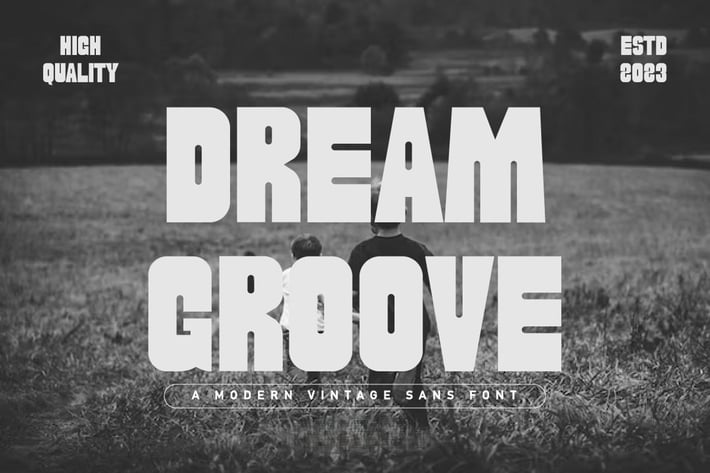
Dream Groove Bold Vintage Display Sans Serif Font
Dream Groove is a bold vintage display sans serif font that brings retro energy and personality to your design. Its thick strokes, rounded edges, and nostalgic letterforms make it ideal for branding, music posters, retro packaging, and creative headlines.
It’s the perfect choice for capturing the bold spirit of vintage pop culture in a modern layout.
Key Features:
- Bold sans serif with retro-inspired design
- Great for branding, packaging, posters, and ads
- Rounded and heavy letterforms for impact
- Ideal for vintage, music, and lifestyle visuals
- Uppercase letters, numbers, and punctuation
- Balanced kerning for clean compositions
Dream Groove adds bold flair and nostalgic charm to your creative projects.
Enhance your projects with Dream Groove – a perfect blend of vintage charm, groovy aesthetics, and bold display typography.